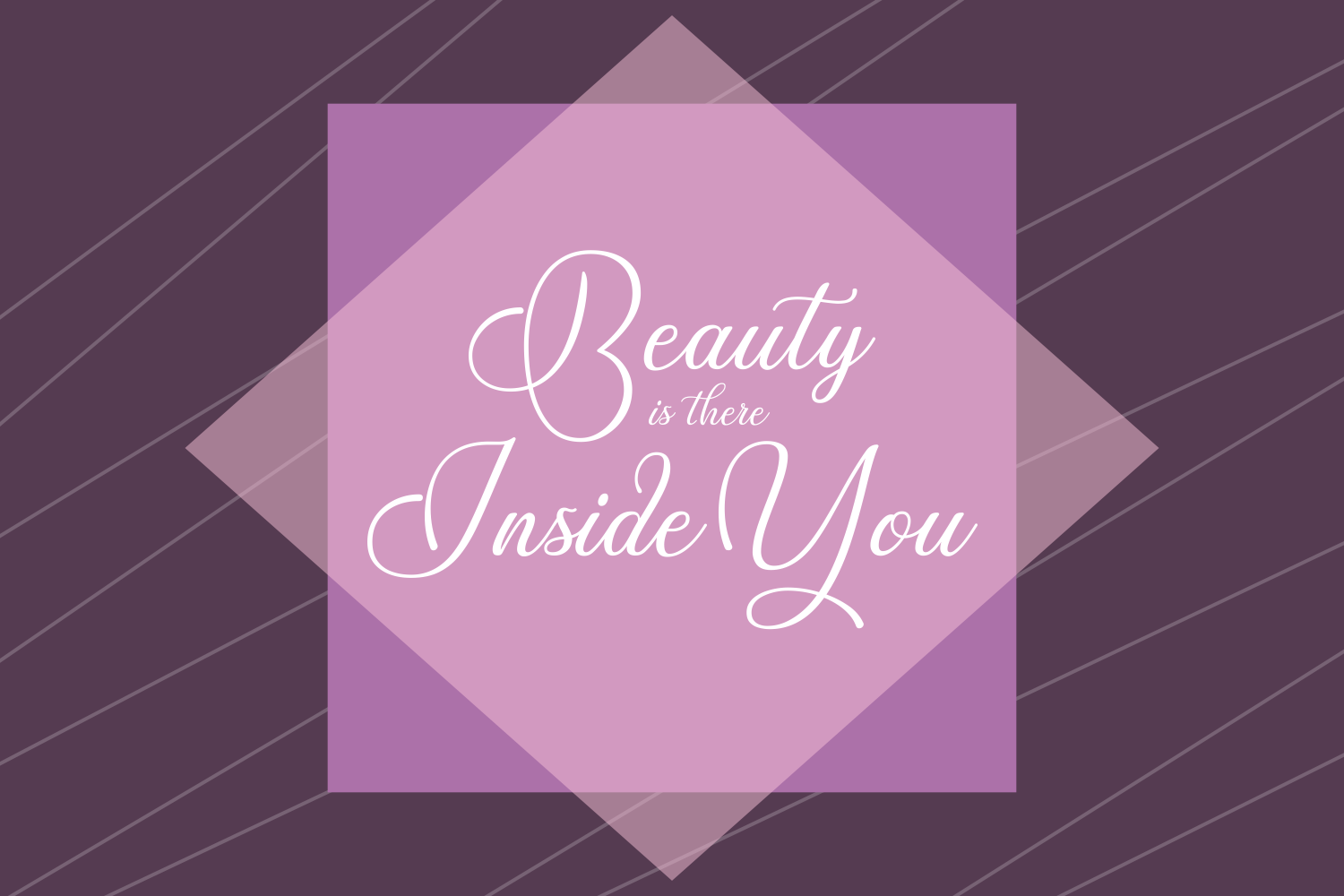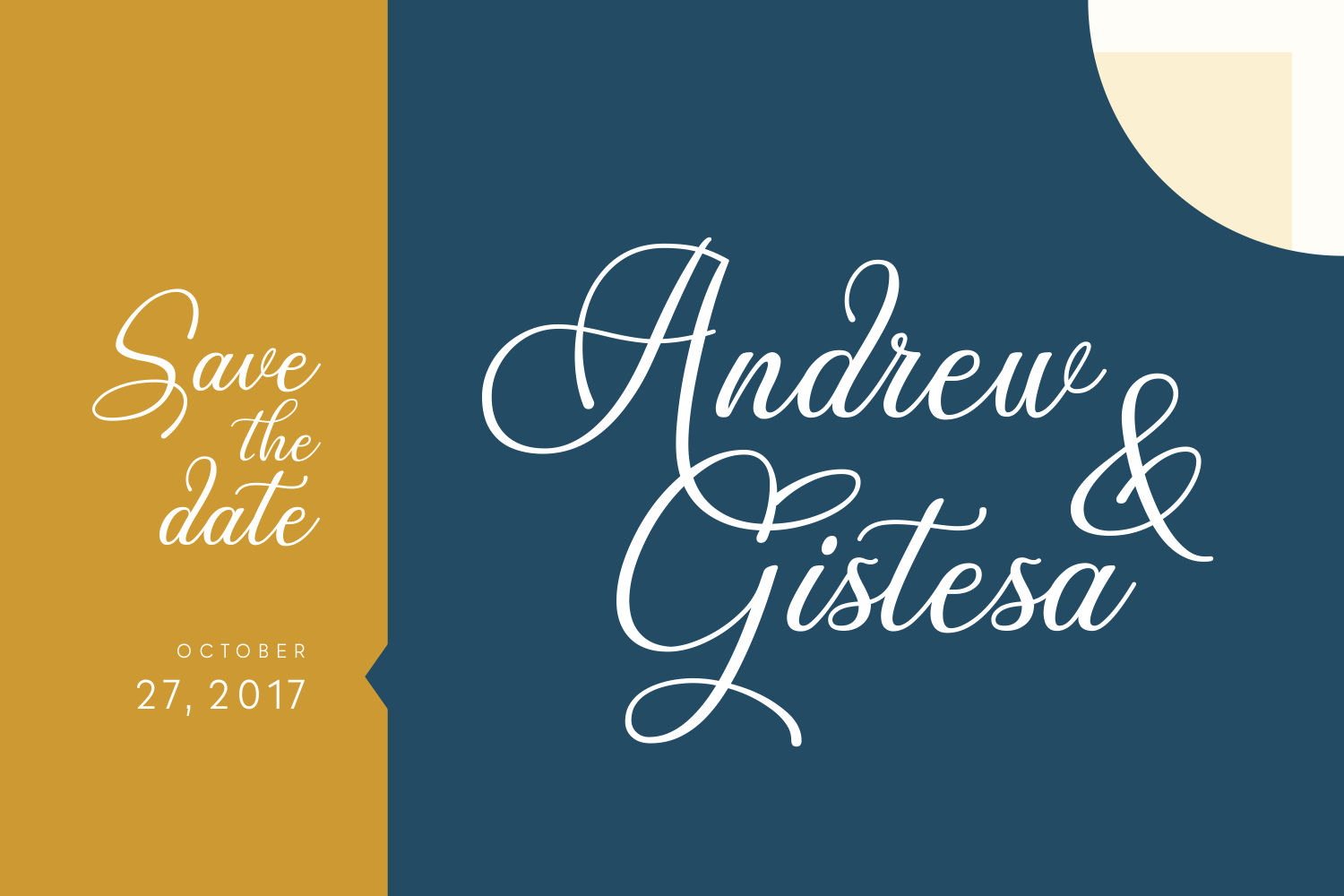
Introduction to Mauna Loa Font
Have you ever stared at a blank page, searching for the perfect font to bring your creative project to life? I know I have. And sometimes, it’s the smallest details that make all the difference. For designers and crafters alike, finding a font that perfectly captures the essence of a project can be a challenge. But what if I told you there’s a font that can elevate your design from good to great?
Enter the Mauna Loa Font, a beautiful, elegant handwritten font that’s as versatile as it is charming. With its delicate script and high-quality design, this font is perfect for adding a classy touch to your designs. Whether you’re creating wedding invitations, signs, or more craft-style projects, the Mauna Loa Font is sure to impress.
What sets this font apart is its ease of use and the fact that it’s available for free download. With a transparent background and a high-quality design, you can use it as a design resource for all your creative projects. And as a bonus, it works perfectly as a signature font or for headlines, making it a valuable addition to any designer’s toolkit.
Key Features of Mauna Loa Font
- Unique blend of modern and traditional Hawaiian typography, making it ideal for creative projects and design resources.
- High-quality font with detailed textures and subtle nuances, perfect for adding a touch of authenticity to designs.
- Optimized for high-resolution designs, ensuring the font remains crisp and clear at large sizes and resolutions.
- Perfect for creative projects, including branding, advertising, and editorial designs, where a unique and eye-catching font is essential.
Honest Review: Mauna Loa Font
Here are some things that work well: ✨ The font is incredibly versatile and can be used for a wide range of applications, from headings to body text. It’s also highly customizable, allowing you to adjust the weight, size, and spacing to suit your needs.
- ✨ High-quality design with a modern and sleek aesthetic
- ✨ Suitable for a wide range of creative projects, including print and digital designs
However, there are a few limitations to be aware of: ⚠️ The font may not be suitable for use on a transparent background, as the design can become slightly distorted. Additionally, some users may find the font too plain or lacking in personality.
Overall, I’m quite impressed with the Mauna Loa Font and would recommend it to any designer looking for a high-quality, versatile font for their next creative project.
Tips for Getting the Most Out of Mauna Loa Font
To get the most out of the Mauna Loa Font, use it for creative projects that require a unique and eye-catching font. Experiment with different font sizes, colors, and styles to create a visually appealing design.
The Mauna Loa Font is commonly used for graphic design, digital art, and creative projects that require a high-quality font with a transparent background. Some popular use cases include logo design, typography, and branding materials.